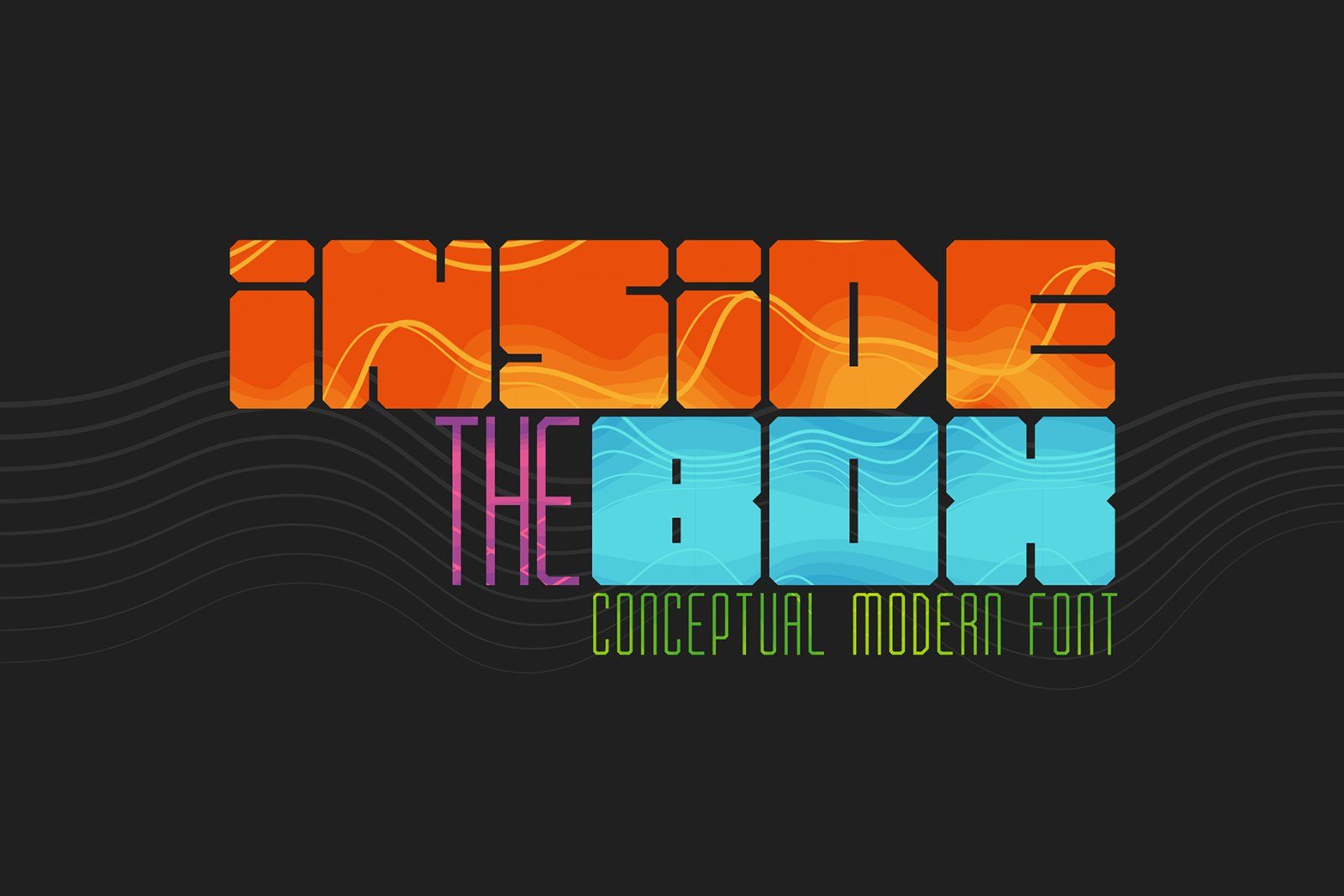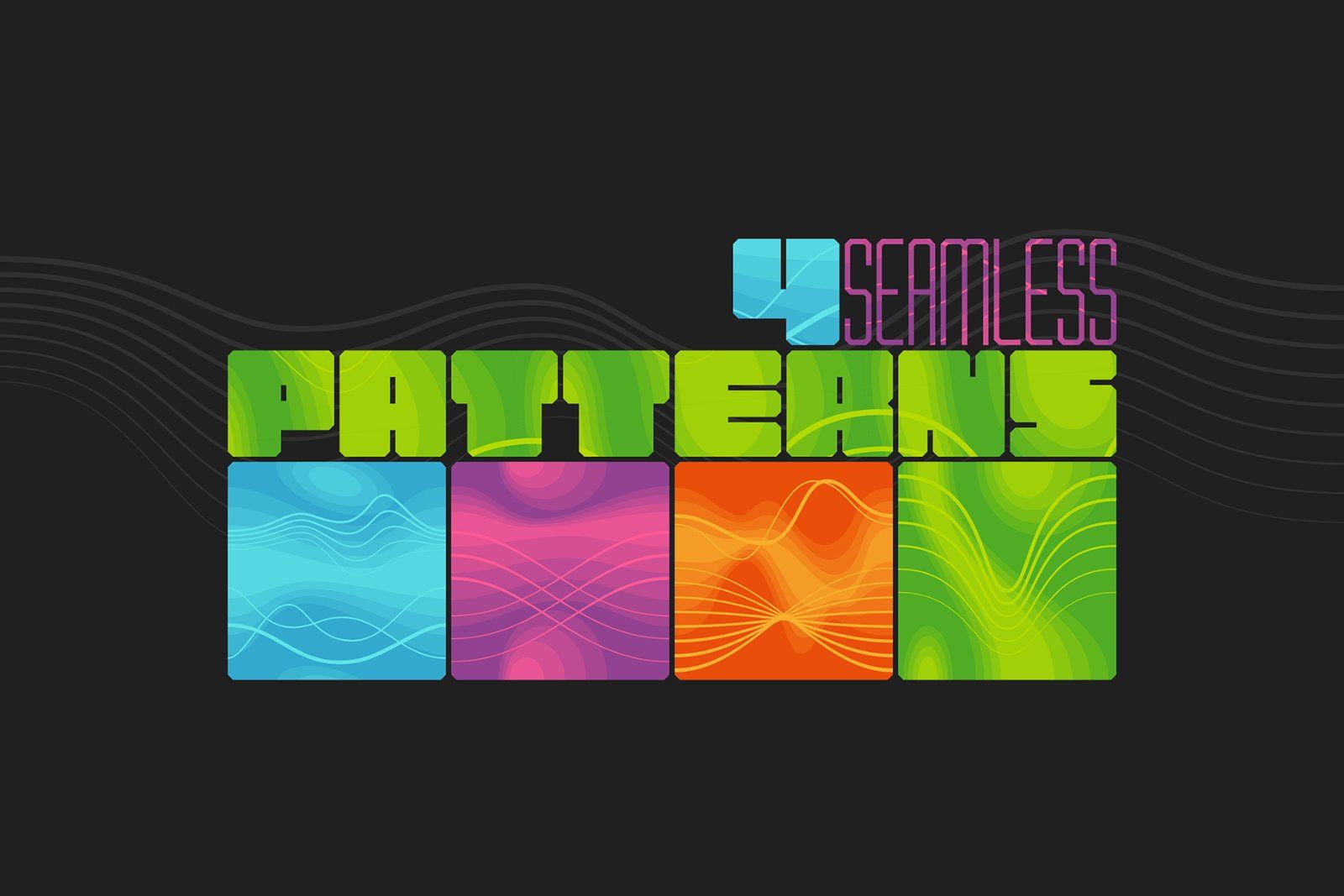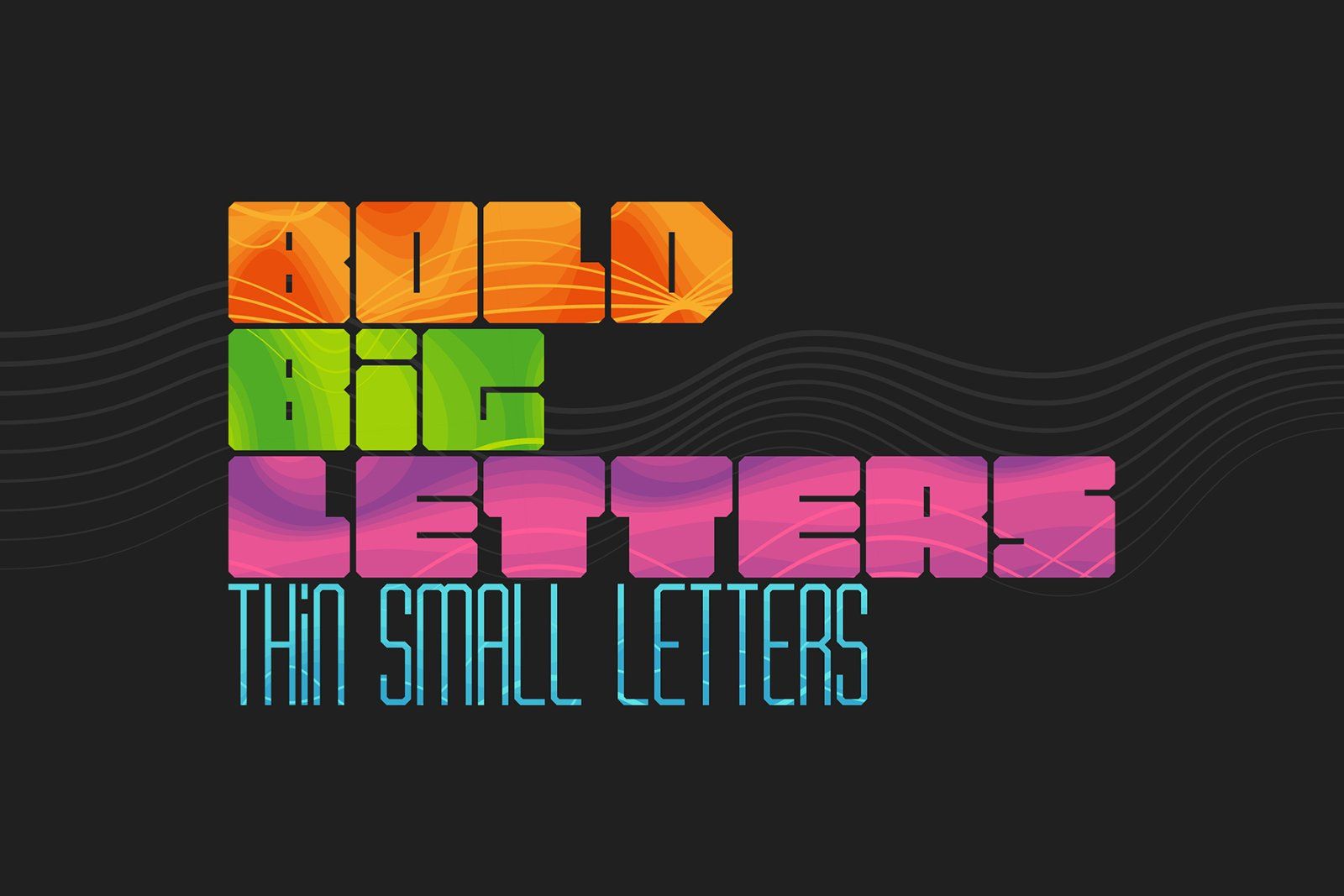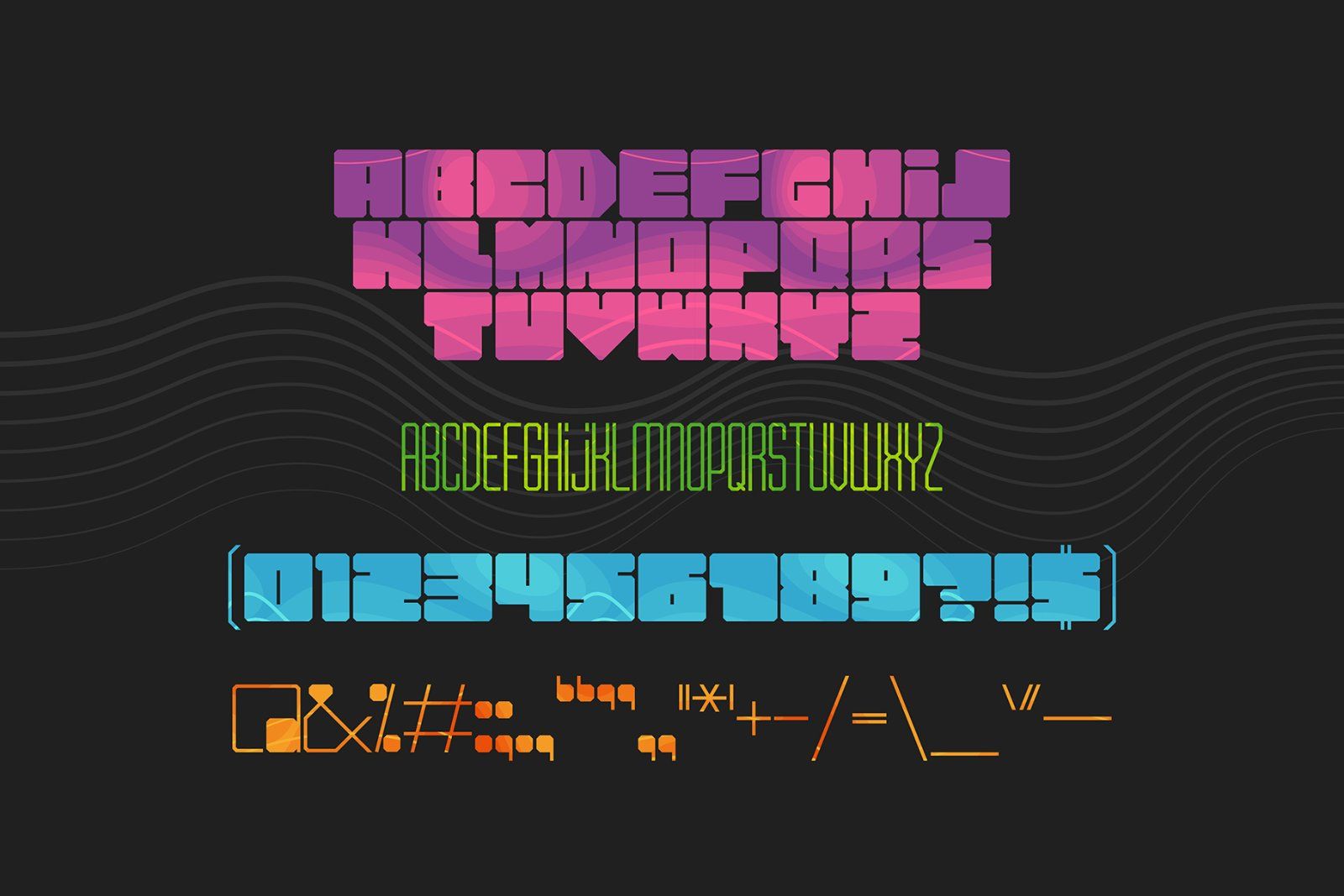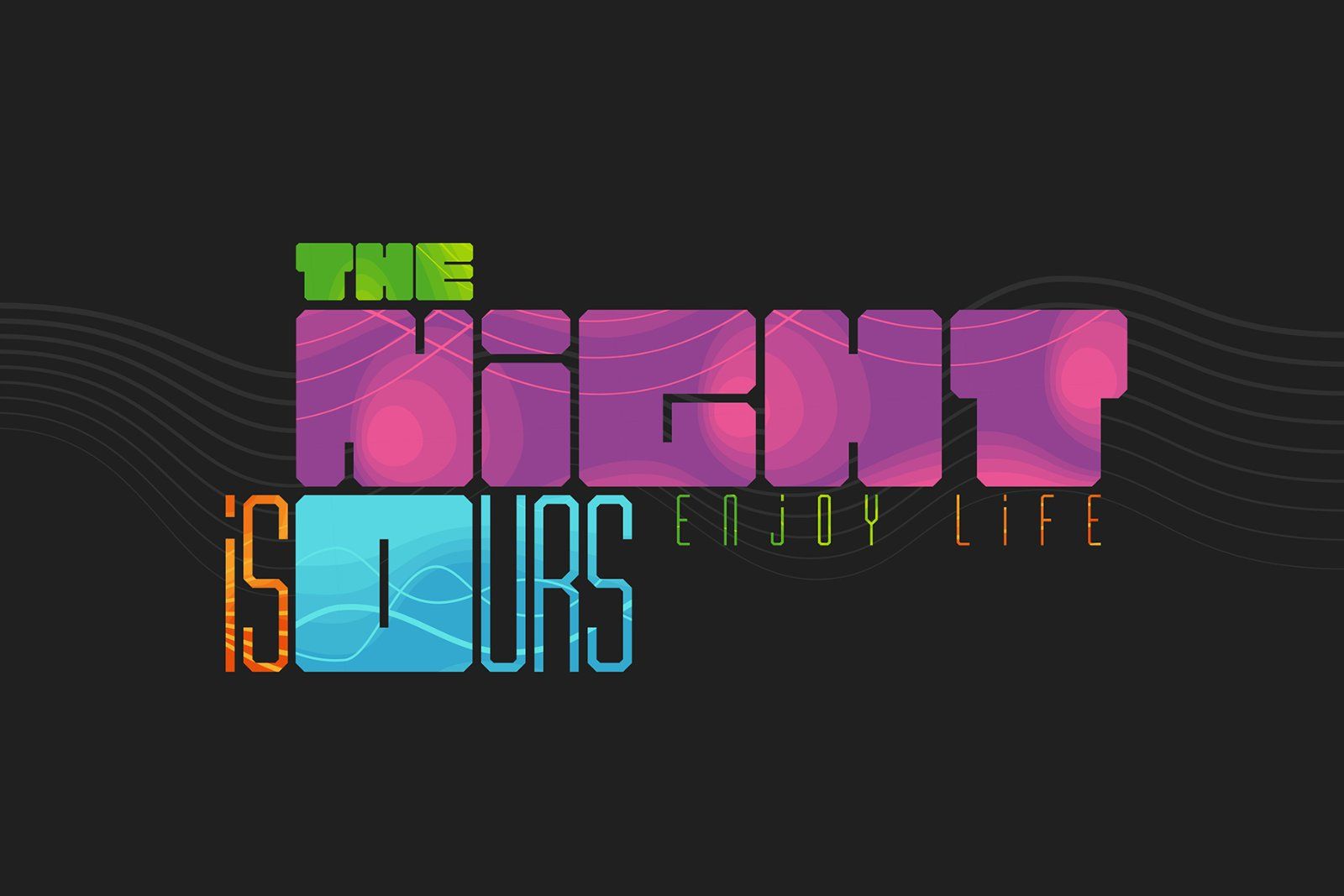
Hi! Introducing conceptual modern typeface "Inside the BOX". It`s two-in-one font - big letters are made bold and fat :) and small letters are thin. Also, as a bonus, you will get four wavy seamless patterns.
Note: This font contains only Latin characters (all available characters you can see on the fourth screenshot)